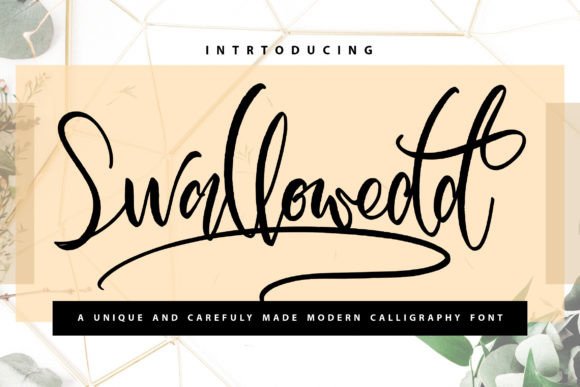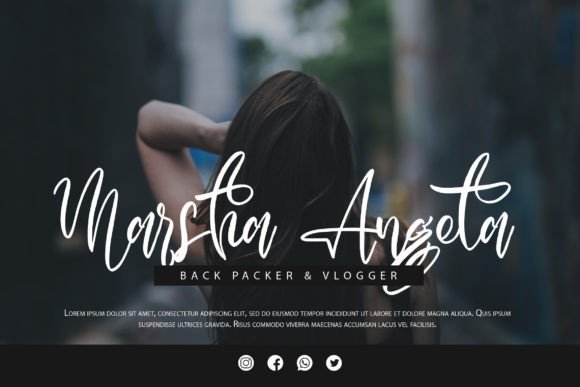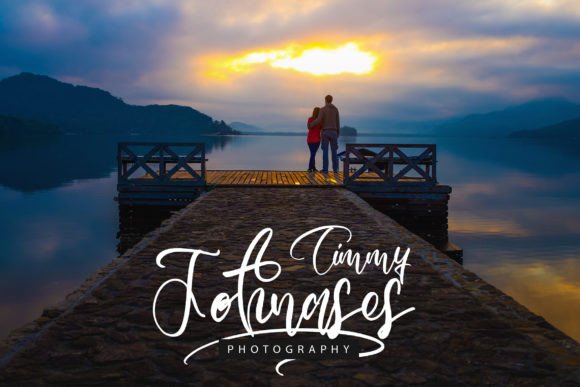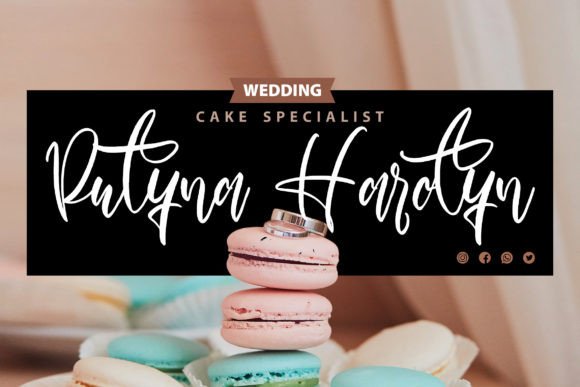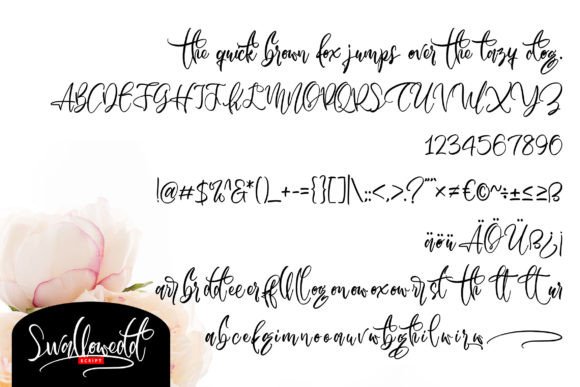
Swallowedd Font
The Swallowedd Font Download is a sweet and cursive handwritten script created to add joy and romance to your projects. With graceful strokes and a gentle flow, this typeface captures the warmth of handcrafted calligraphy while offering a polished modern touch. Whether you are designing wedding invitations, quotes, or branding materials, Swallowedd enhances your work with elegance and charm.
A Gentle Handwritten Script with Romantic Style
The Swallowedd script font features soft curves and balanced letters, making it versatile and timeless. As a result, it looks stunning across both small stationery and bold display designs. Furthermore, its cursive style ensures each project feels heartfelt and unique.
Handwritten calligraphy always makes stationery more personal. The Swallowedd Font is perfect for wedding invitations, thank you notes, seasonal cards, and birthday greetings. Because of its sweet handwritten energy, it ensures that every card feels special and memorable. In addition, it adds a joyful and romantic accent to any occasion.
Branding and Logo Design with Swallowedd Font
Typography influences how people perceive brands. The Swallowedd handwritten font is an excellent choice for boutique logos, packaging, and lifestyle branding. Its romantic strokes make businesses appear approachable yet elegant. Therefore, it works particularly well for creative, beauty, and artisanal industries.
Posters, Quotes, and Editorial Projects
The Swallowedd Font Download also shines in posters, magazines, book covers, and inspirational quotes. Its flowing handwritten style makes words stand out while remaining easy to read. Consequently, it’s an excellent choice for designers who want to combine beauty and clarity.
In today’s digital-first environment, fonts must perform across platforms. The Swallowedd typeface integrates seamlessly into Instagram posts, Pinterest boards, YouTube thumbnails, and blogs. Because of its sweet cursive strokes, it ensures your digital content feels warm, stylish, and inviting.
Why Designers Choose Swallowedd Typeface
Designers value fonts that combine artistry with usability. The Swallowedd handwritten script maintains its charm while being easy to apply in multiple contexts. This makes it a favorite for both professional designers and hobbyists. Moreover, its timeless cursive style ensures it will remain trendy in the years ahead.
Add Romantic Charm to Your Projects Today